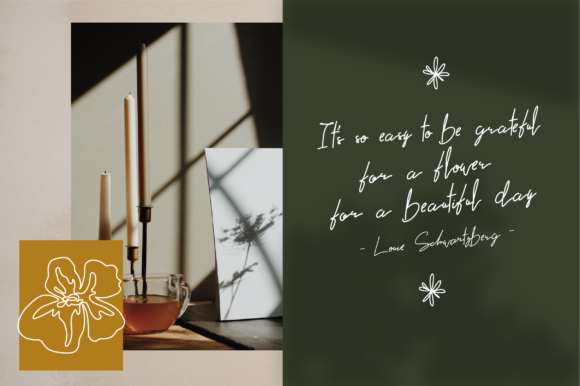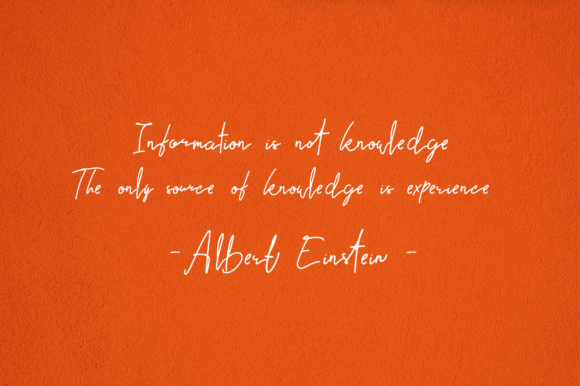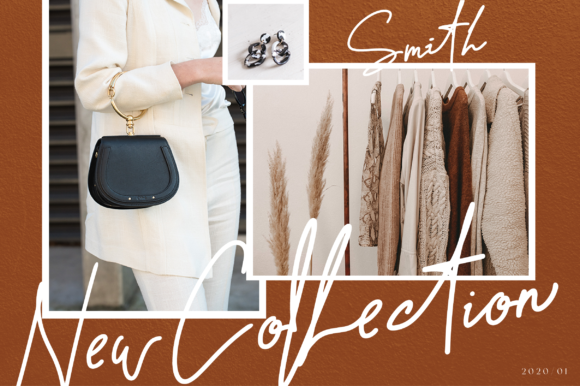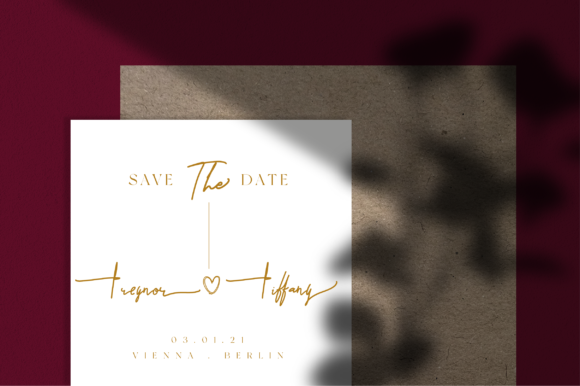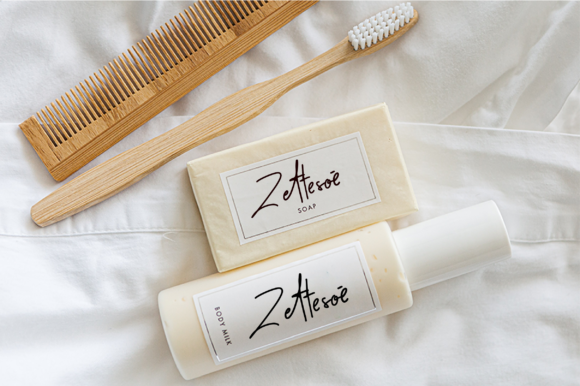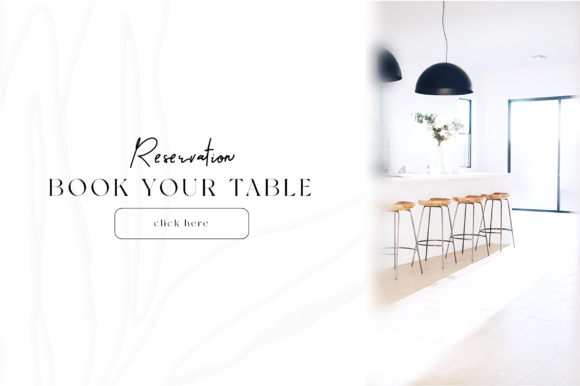
Introduction to Patterson Font Font
Fonts play a crucial role in design, and the Patterson Font font is a typeface that brings both character and versatility to any project. Whether you’re working on a branding project, a website, or a print design, the Patterson Font font offers a unique style that can elevate your work.
Patterson is a fresh, unique script with a carefree attitude and a playful edge.
Perfect for adding a quirky but casual feel, it comes with a large selection of natural-looking ligatures This font is perfect for logos, invitations, wedding designs, social media posts and much more.
The Patterson Font font is more than just a typeface – it’s a design tool that helps you communicate your message with style and clarity. Its unique character set and versatile design make it suitable for a wide range of applications, from elegant invitations to bold headlines.
With its carefully crafted letterforms and balanced proportions, the Patterson Font font ensures readability and visual appeal across all mediums.
The Patterson Font font stands out with its unique design, exceptional readability, and versatility across various design applications.